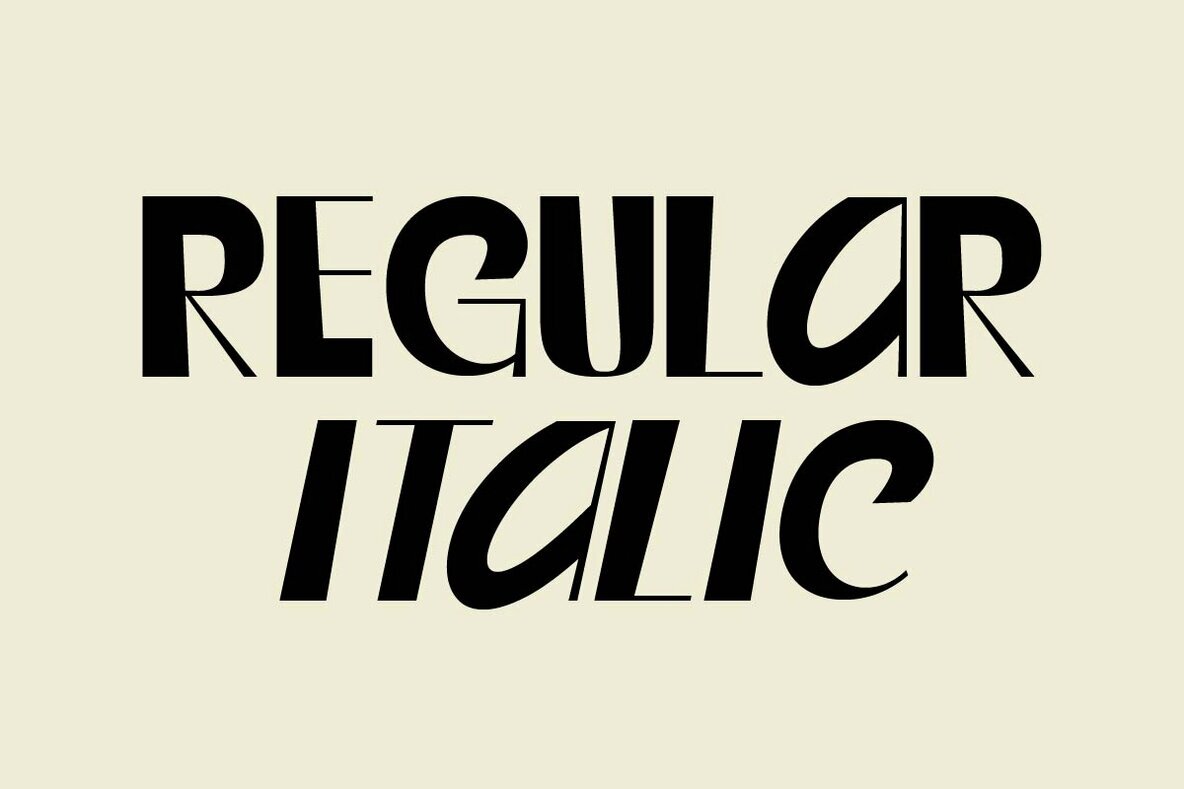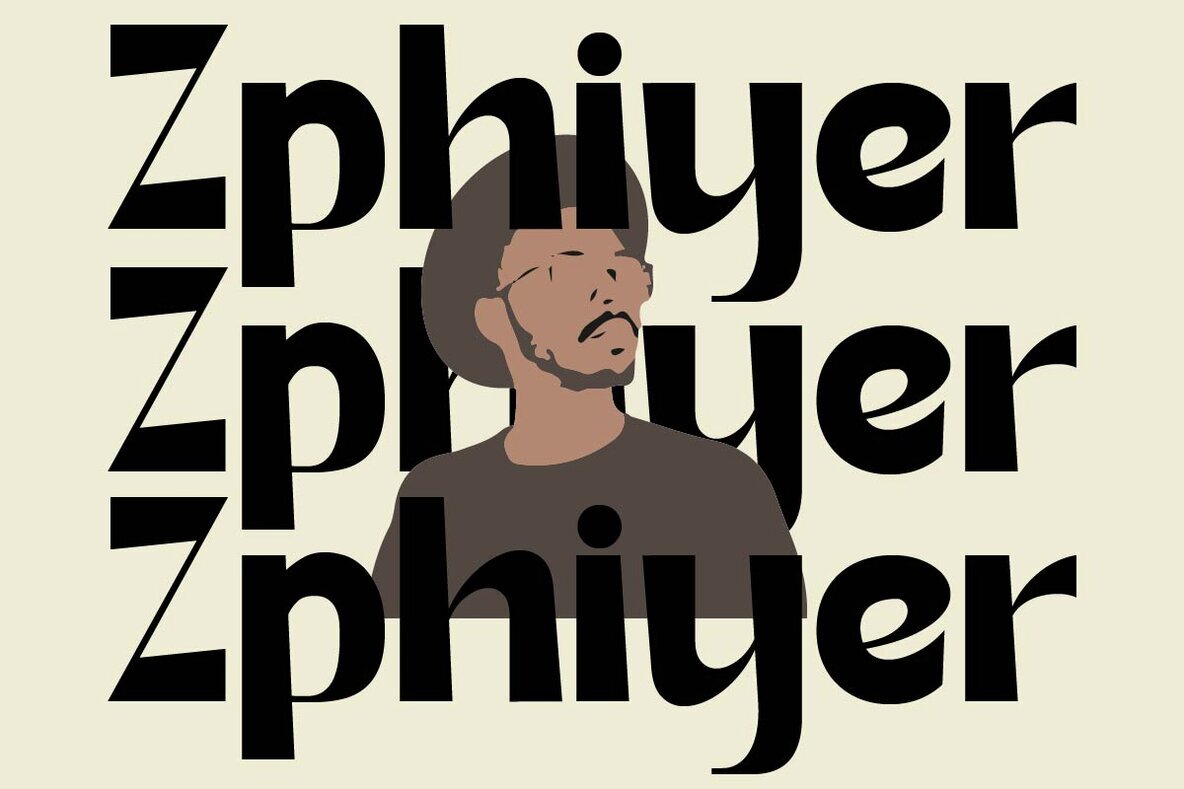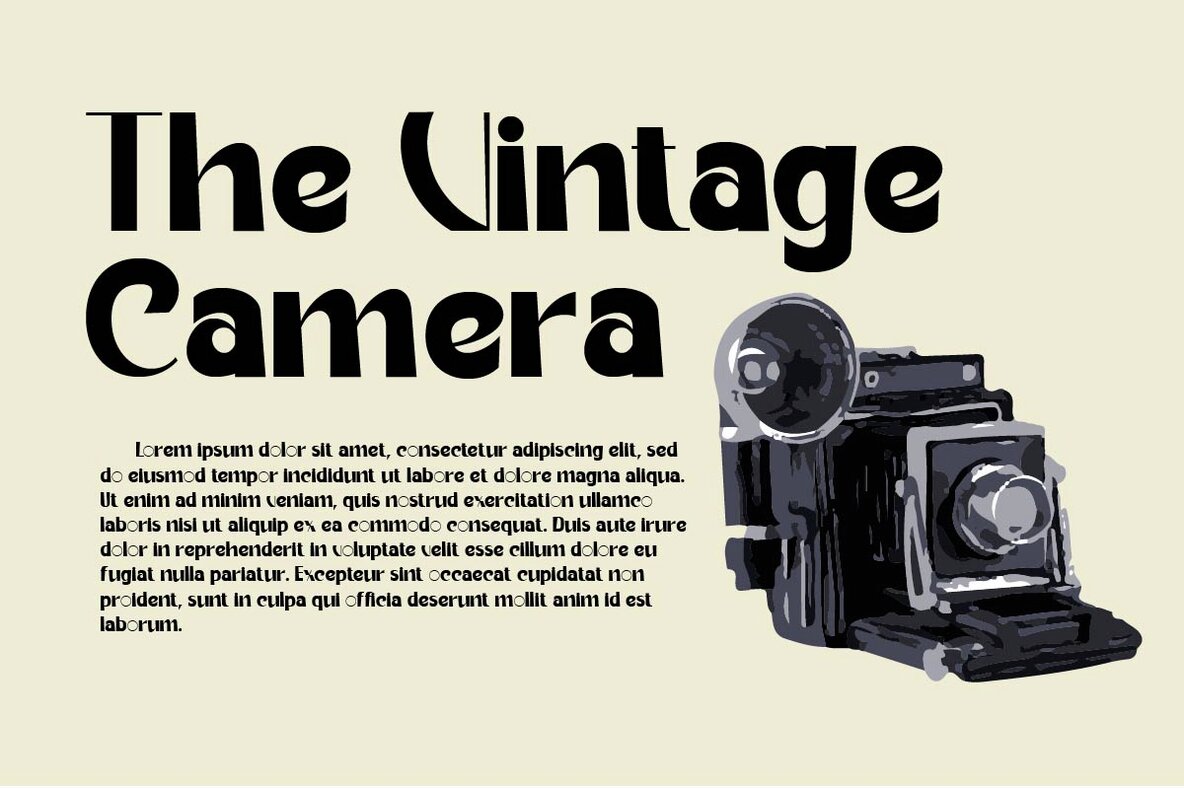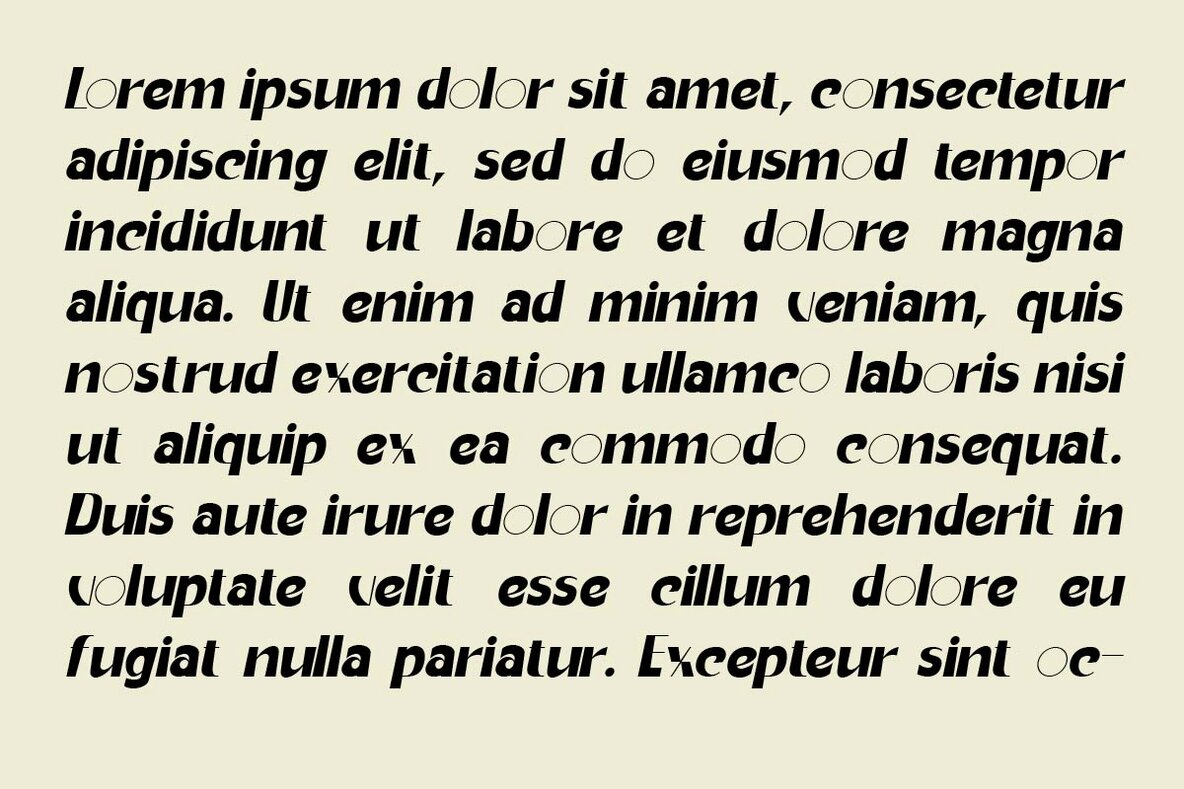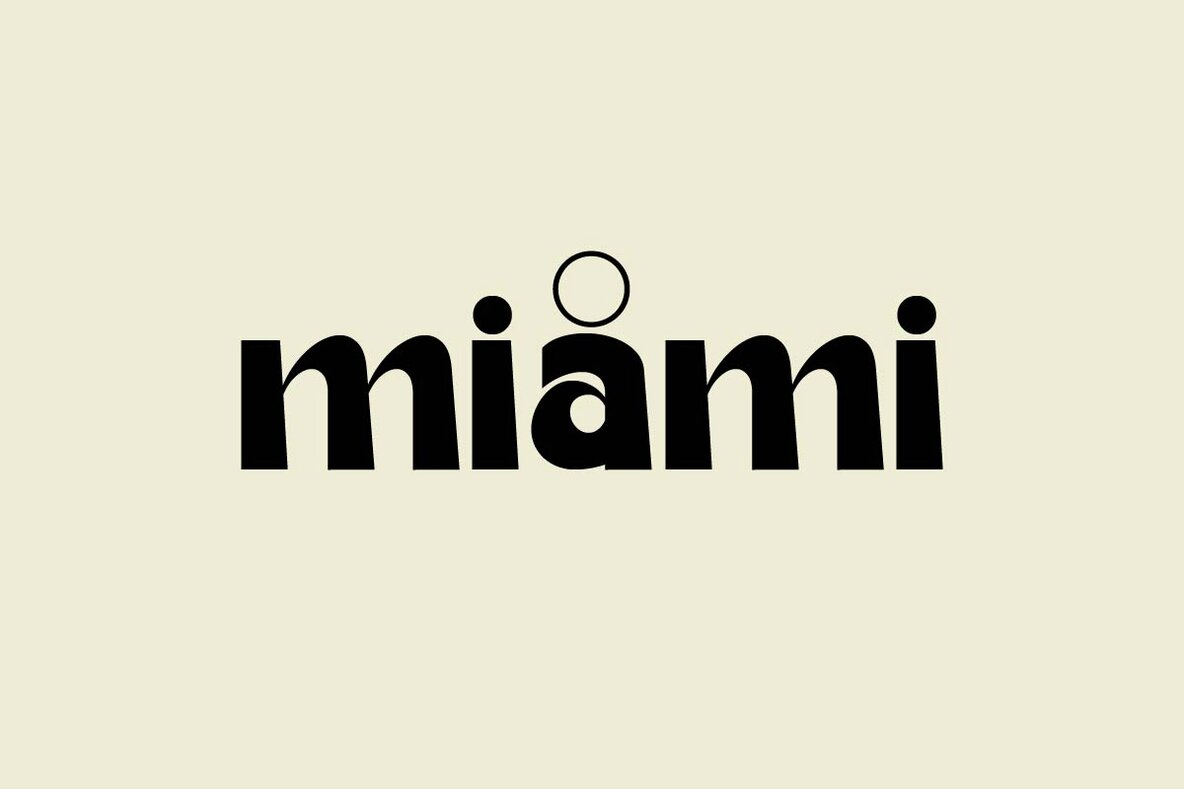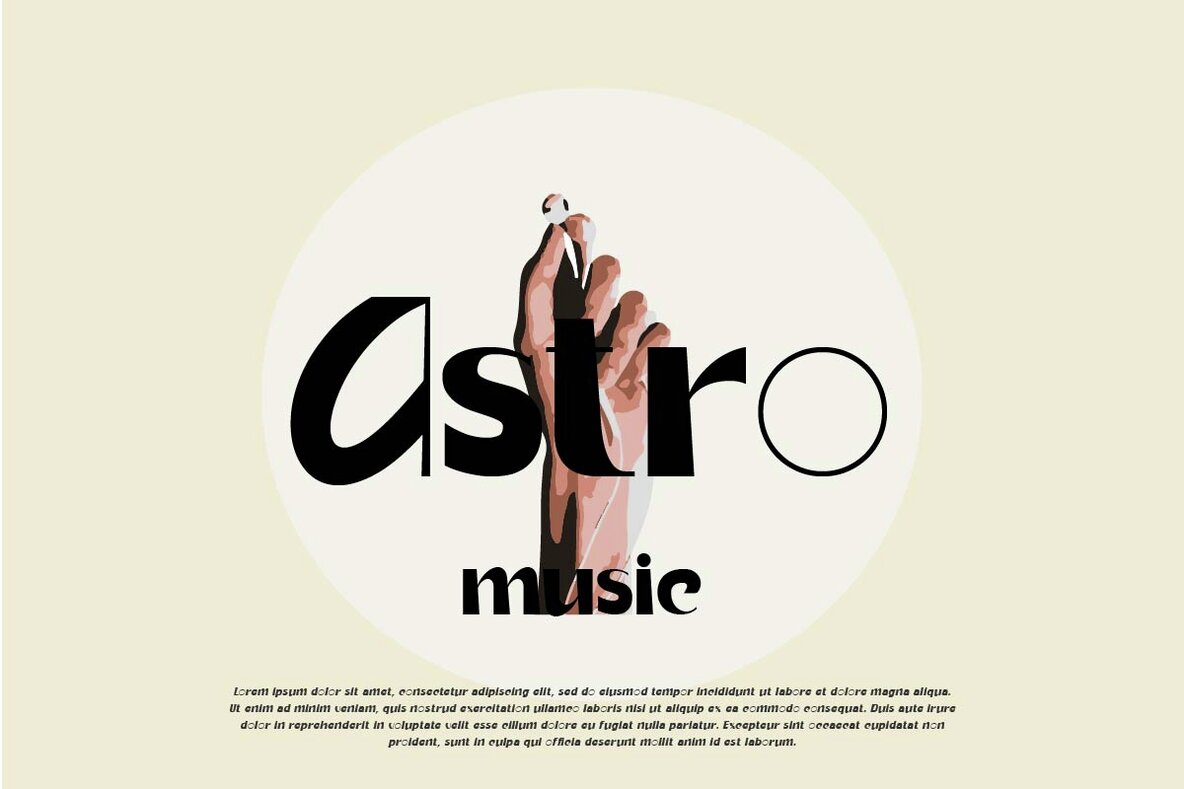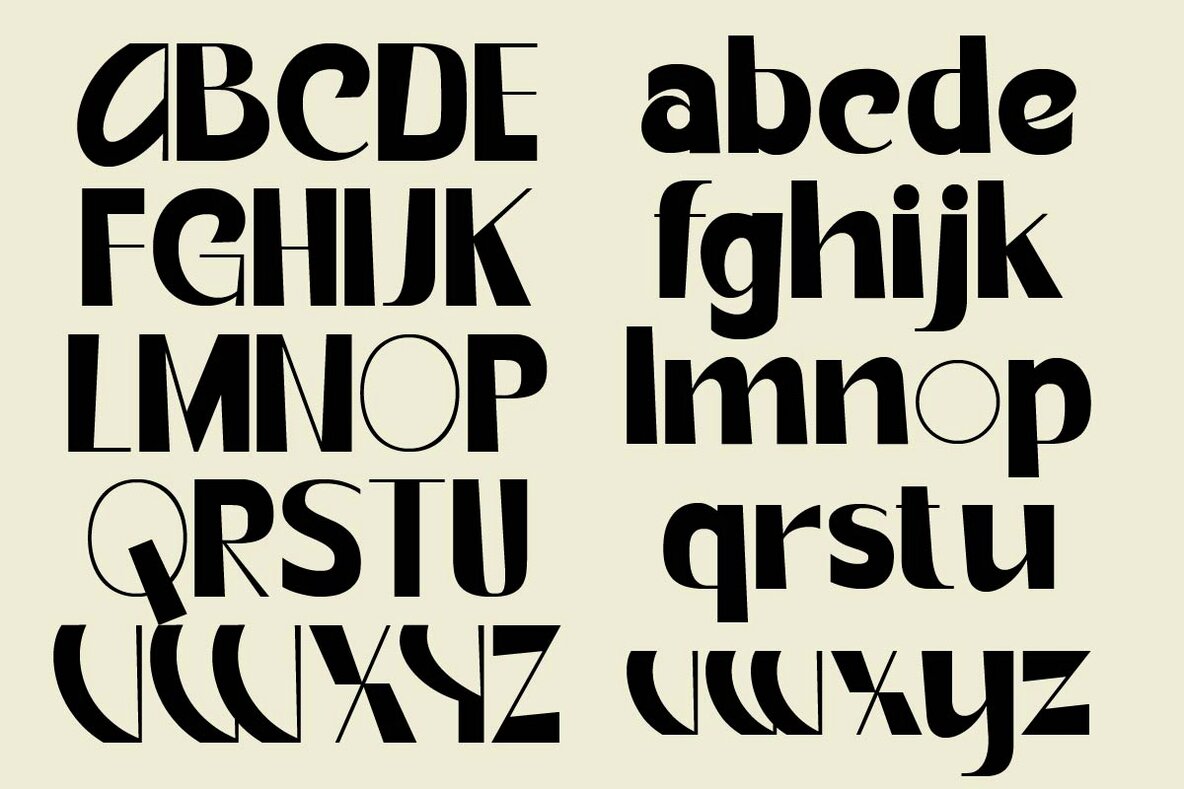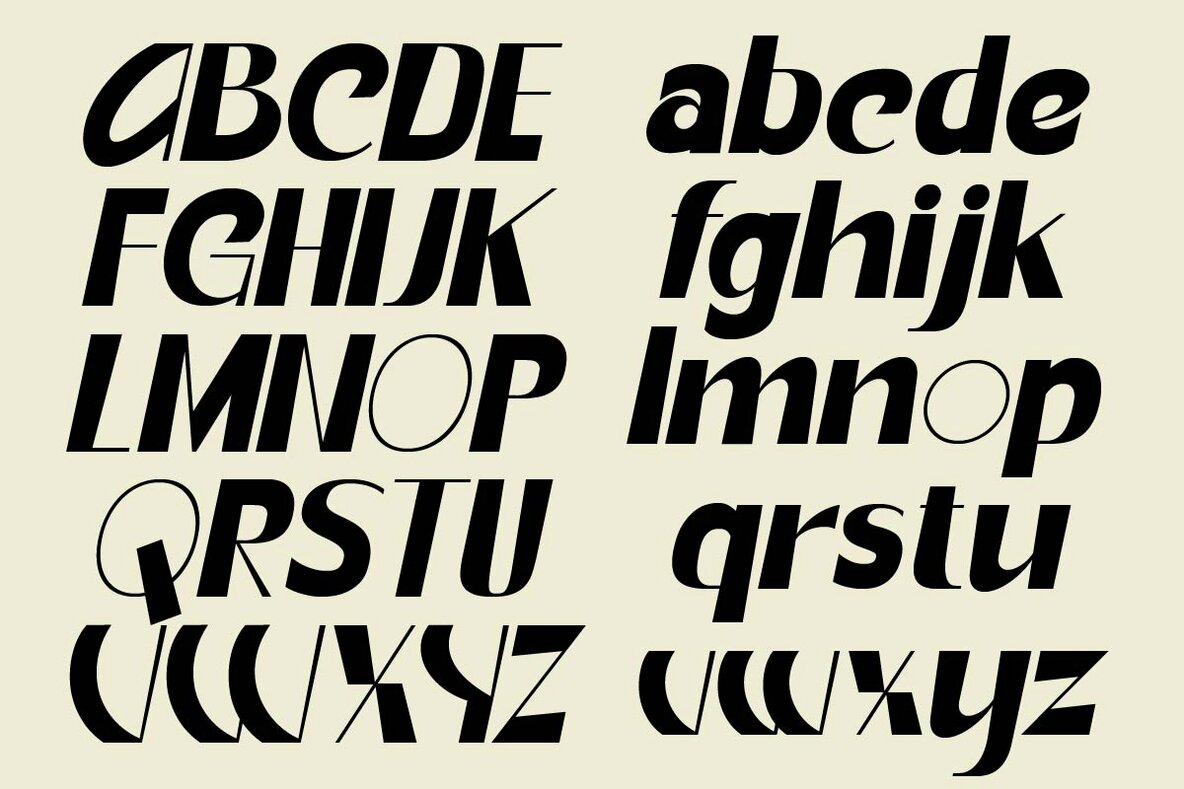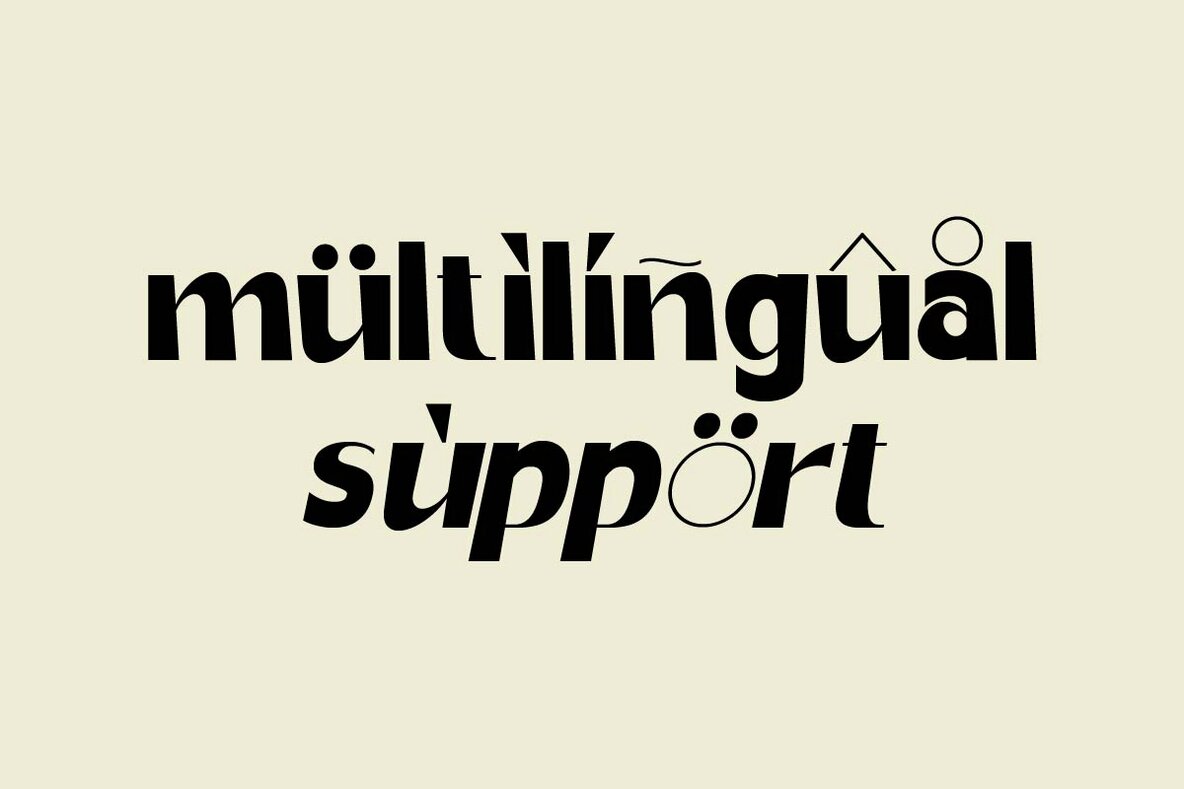
Galndrie Font
Galandrie is a modern display font crafted by Muksal Creative, featuring special glyphs, ornamental details, and multilingual support. This versatile font excels in both large and small sizes, making it ideal for a range of design projects, including editorial work, logo design, clothing branding, product packaging, and magazine headers. Utilize it to create a stylish text overlay on any background image.Galandrie: Versatile Modern Display Font